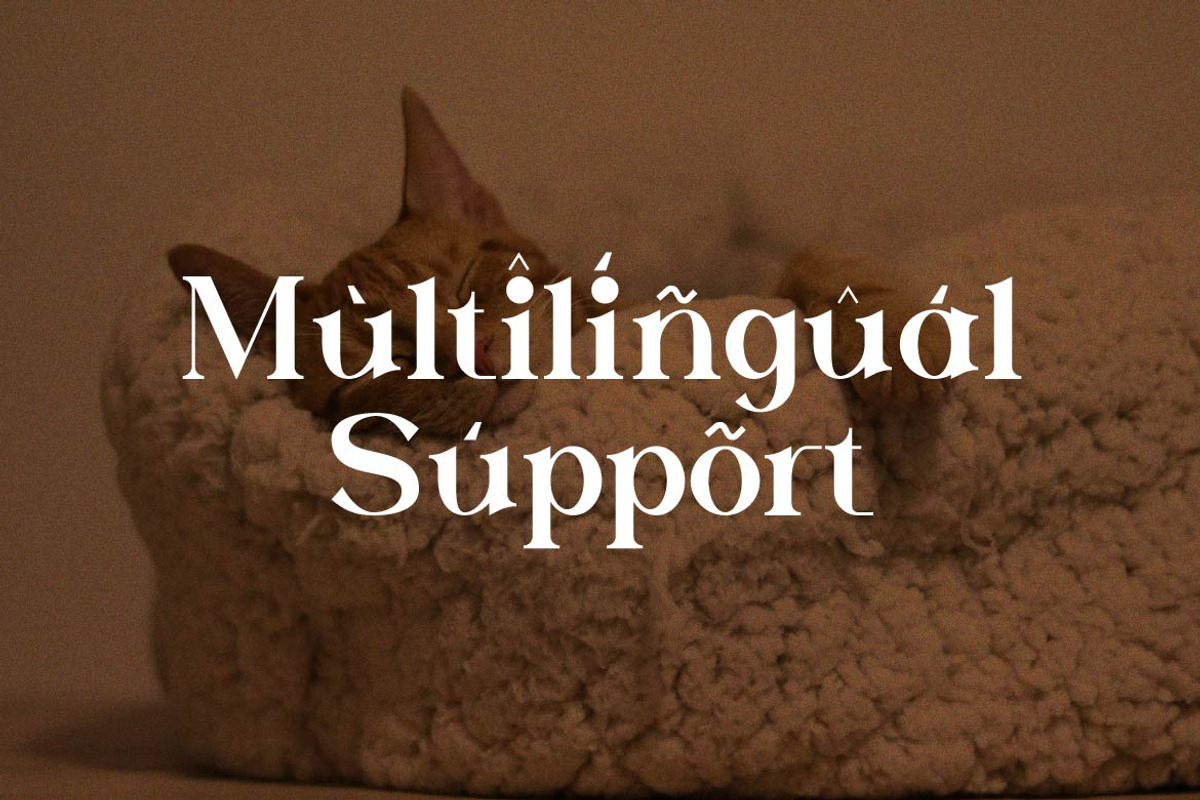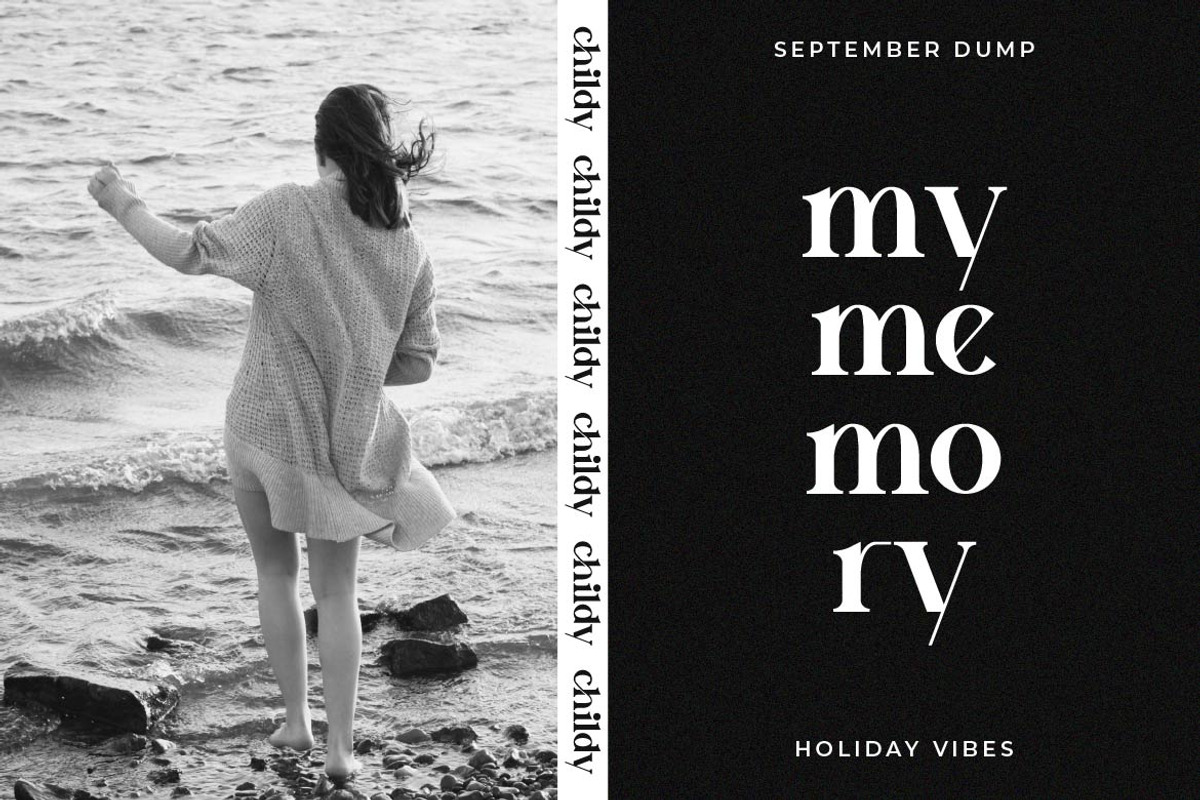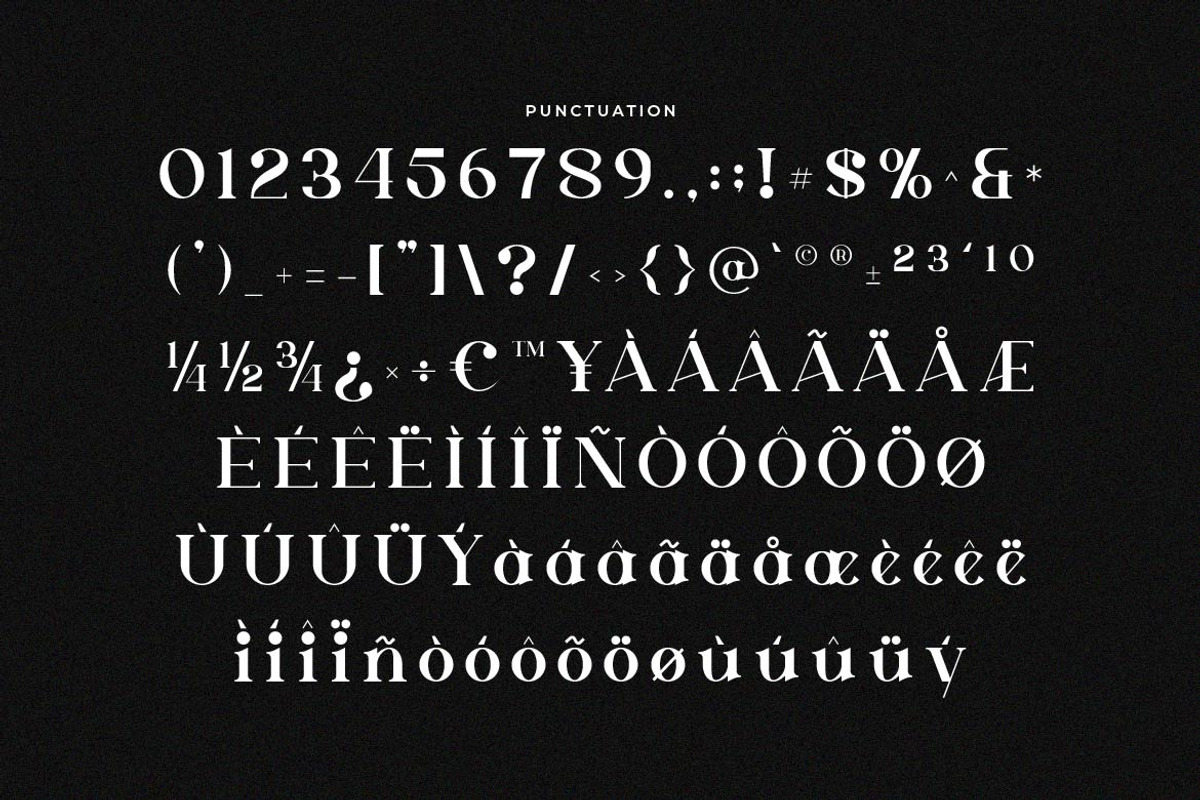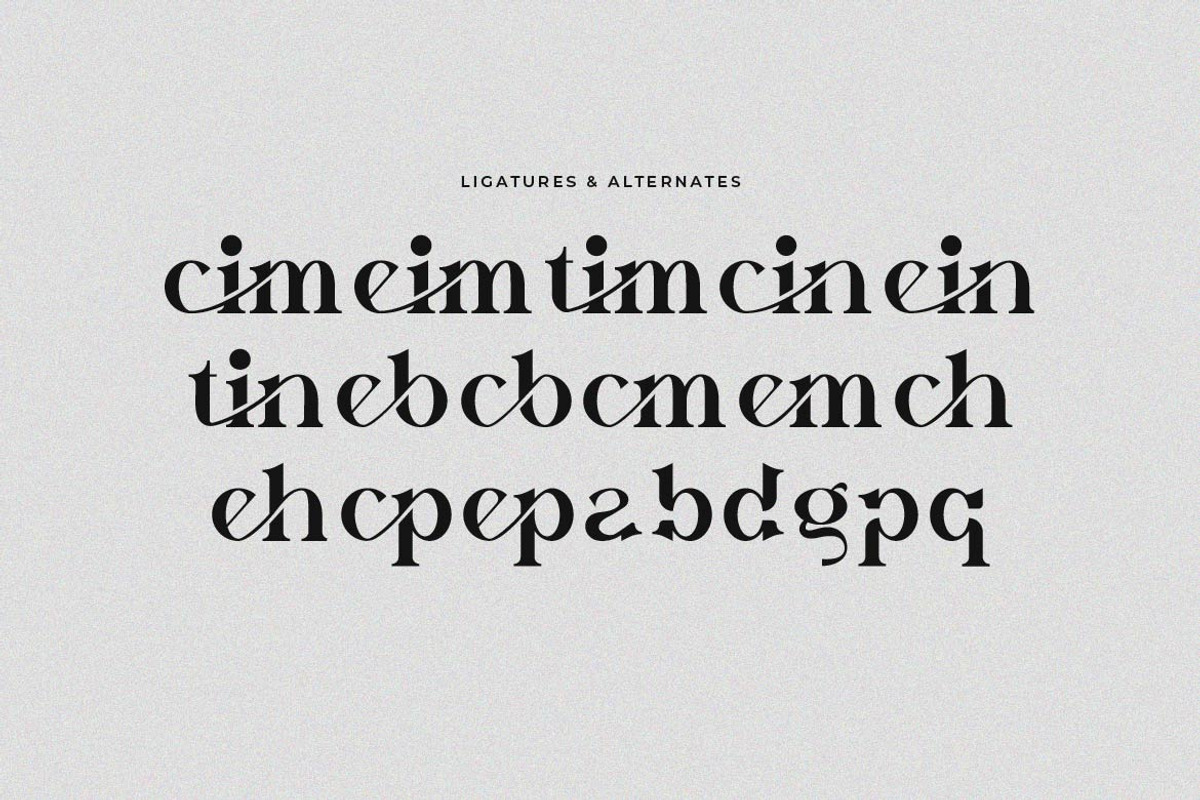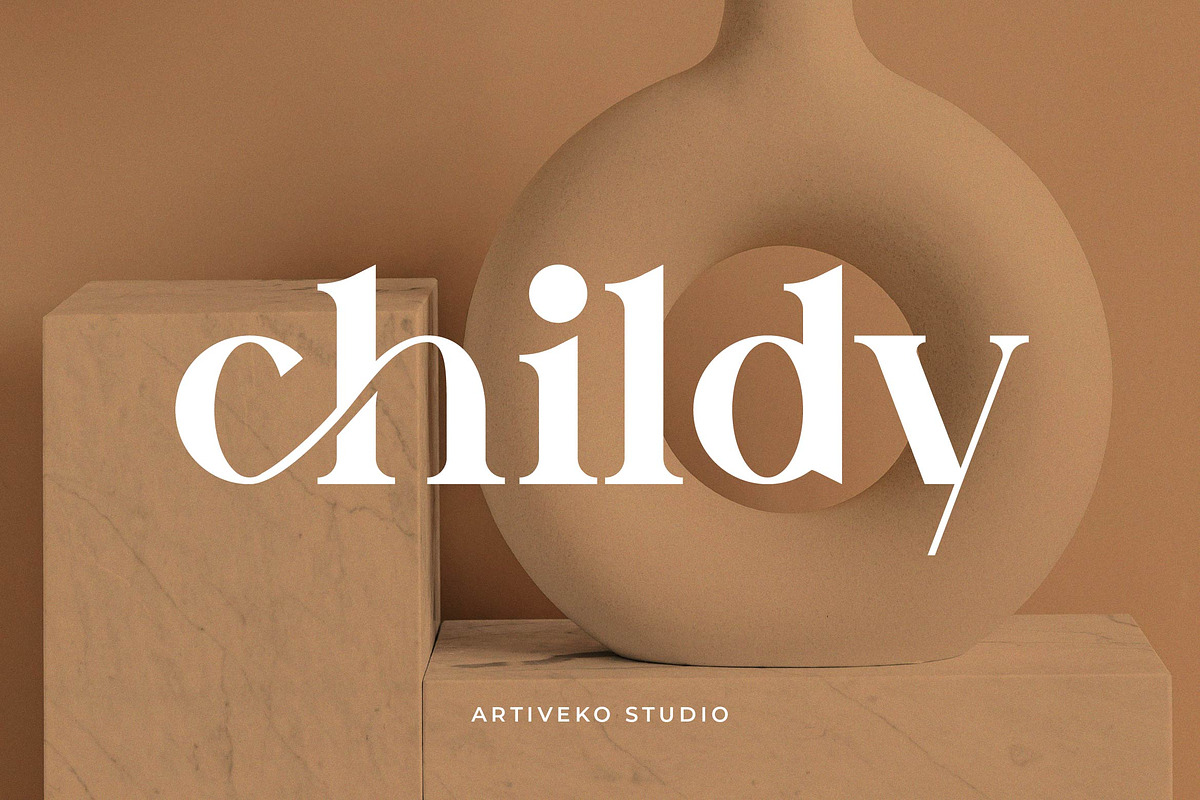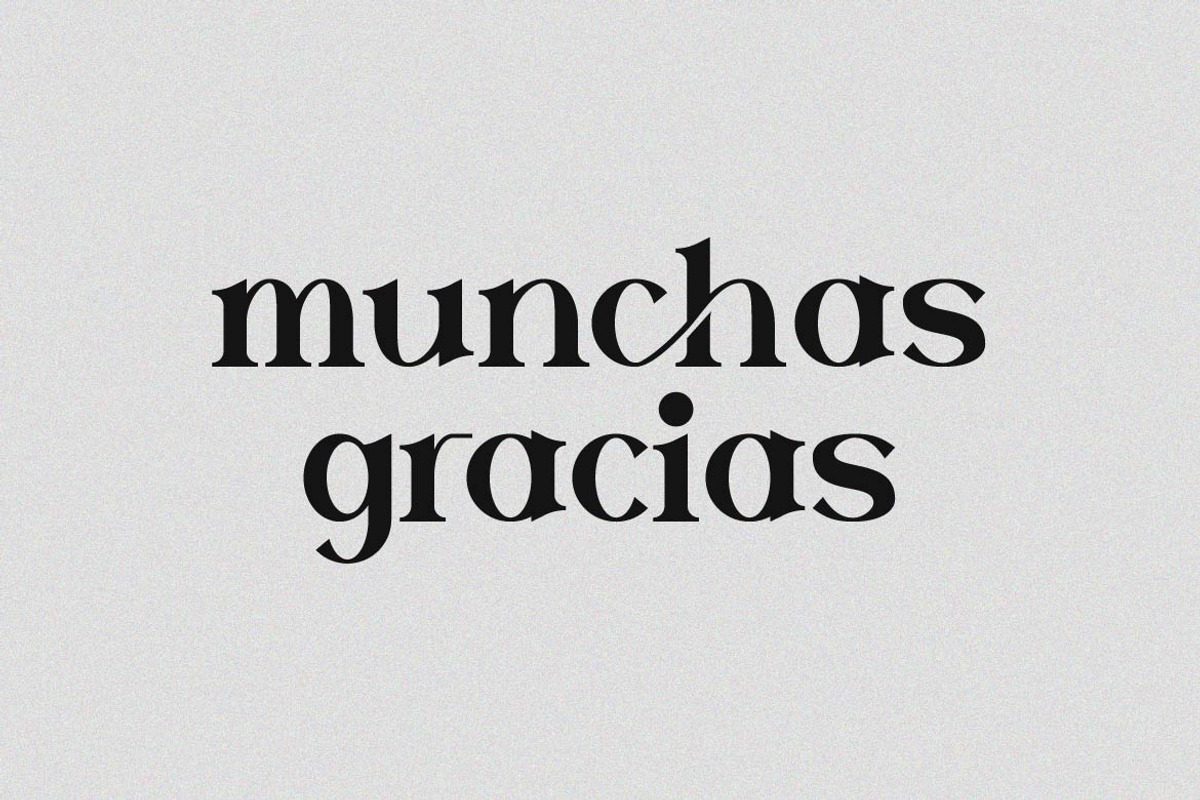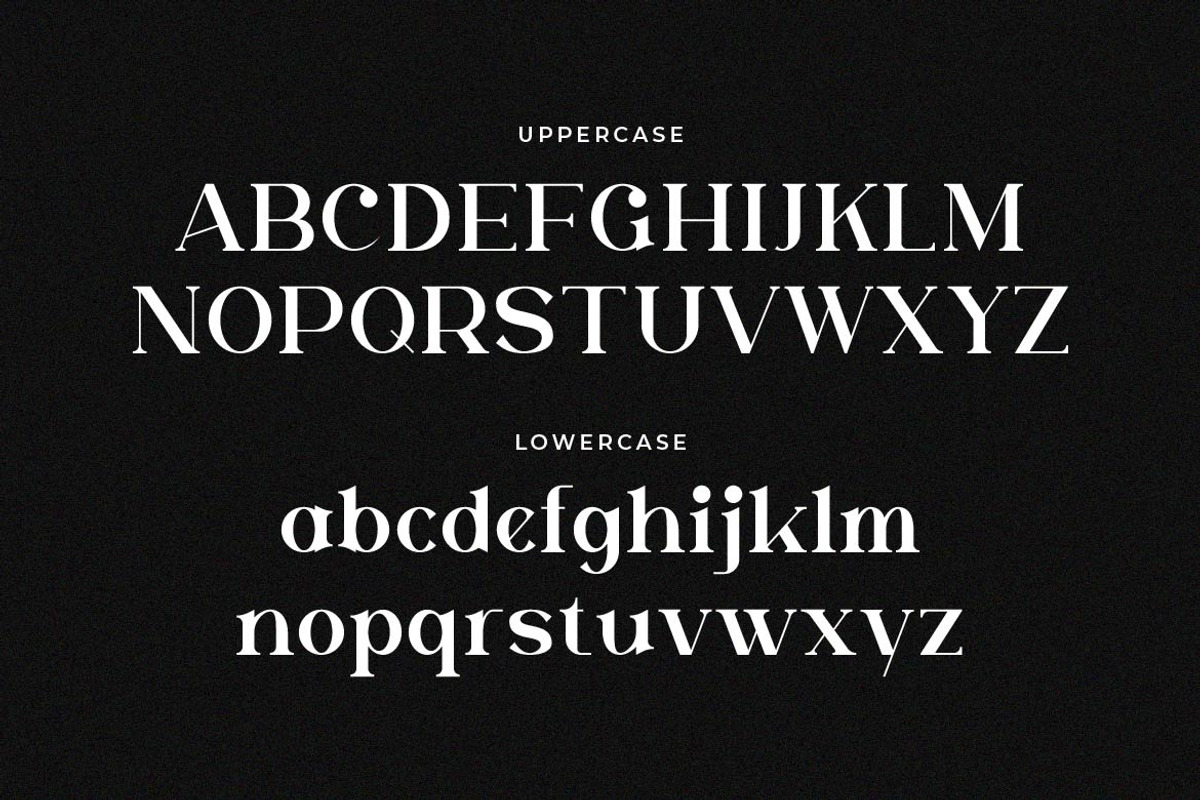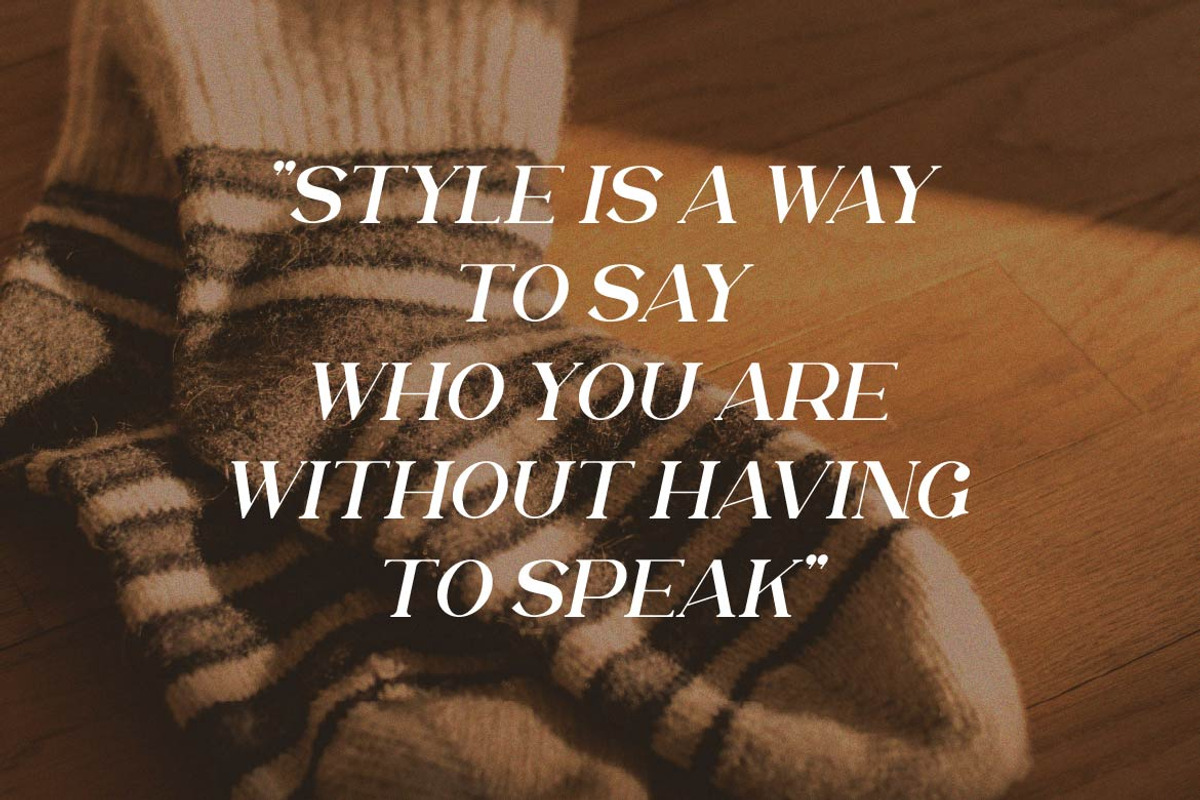
Childy Minimalist Serif
Childy is a refined serif font created to bring sophistication and exclusivity into your design projects. With high-contrast strokes, elegant curves, and carefully balanced proportions, Childy is perfect for luxury branding, premium packaging, fashion editorials, invitations, and upscale logo design.